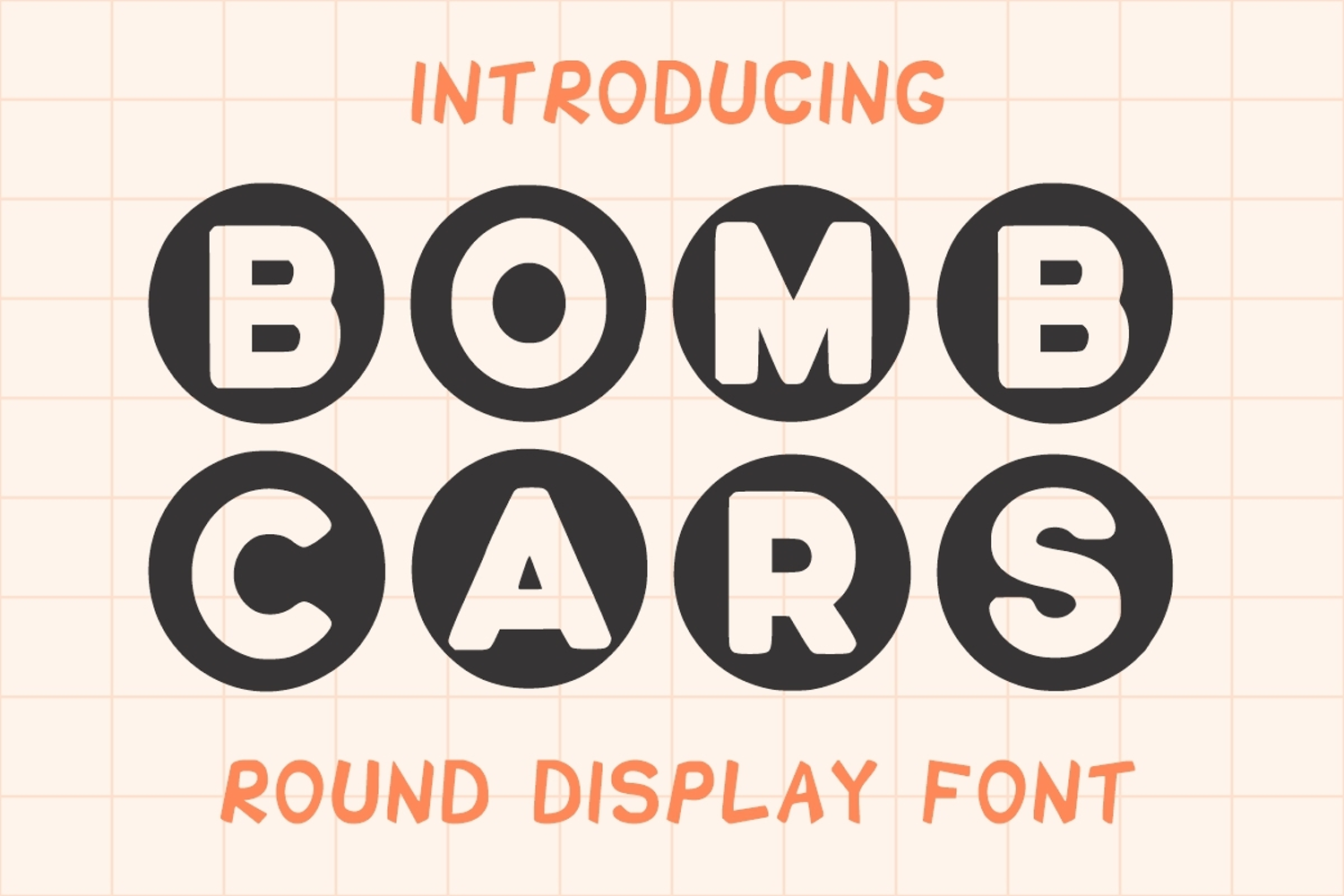
Bomb Cars
Bomb Cars is a round and fun decorative font. Add it to each of your promotions, price tag, logos, party invitations, or pretty much any design that requires a touch of youth and joy.